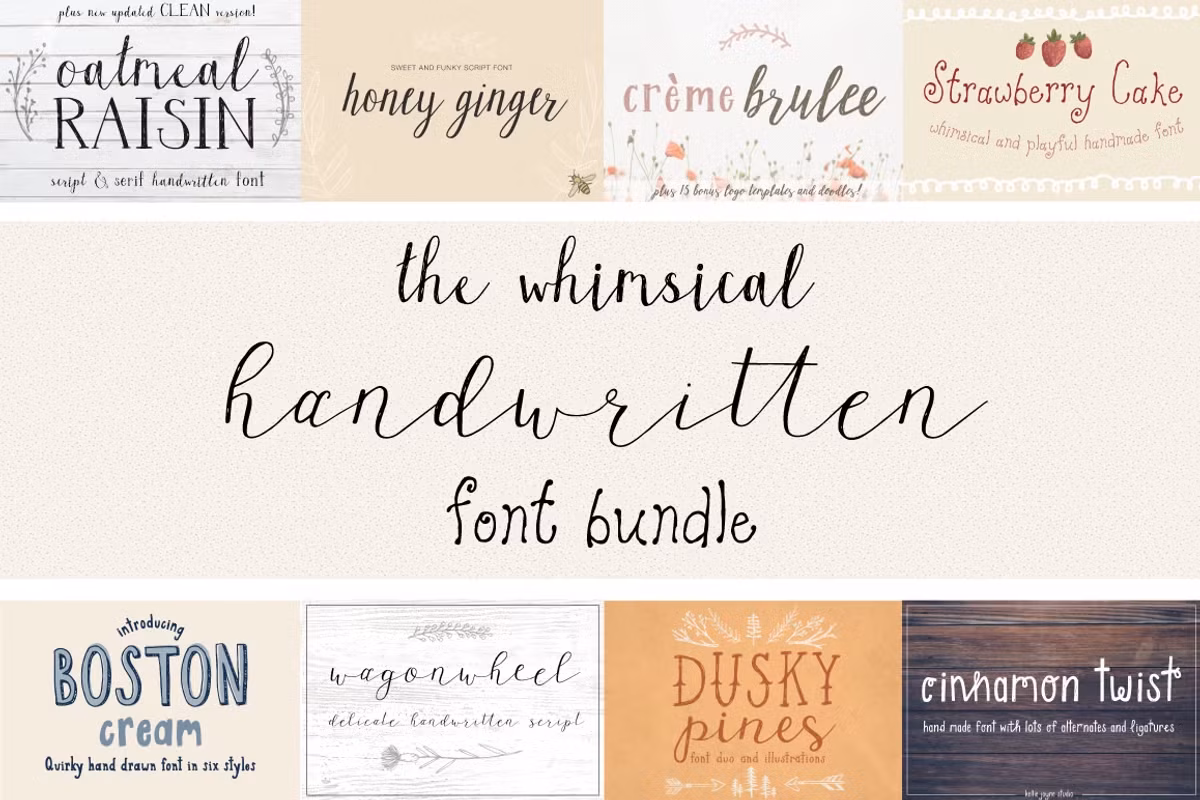
The Whimsical Handwritten Font Bundle Free Download is a delightful collection of fun, expressive fonts that bring a playful, personal touch to your designs. Featuring a variety of handwritten styles, this bundle includes fonts that range from casual scripts to quirky, charming letterforms. Perfect for creating logos, invitations, posters, social media graphics, and more, these fonts add a unique, hand-crafted flair to your work.
Whimsical Handwritten Font Bundle Free Download is ideal for designers looking to add a friendly, lighthearted feel to their typography. Perfect for personal projects, branding, or creative campaigns, this bundle will help you create whimsical, eye-catching designs with ease. Download it today and bring a fun, artistic touch to your creative work with this playful font collection!